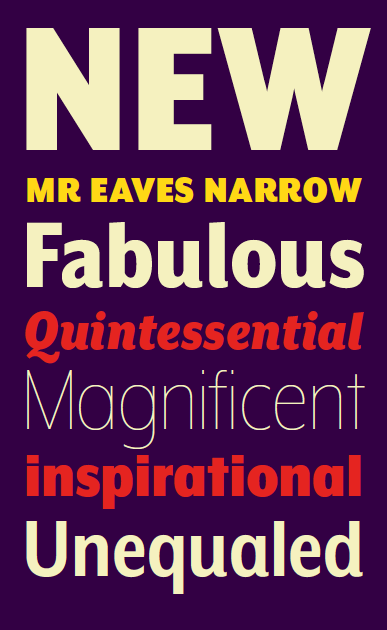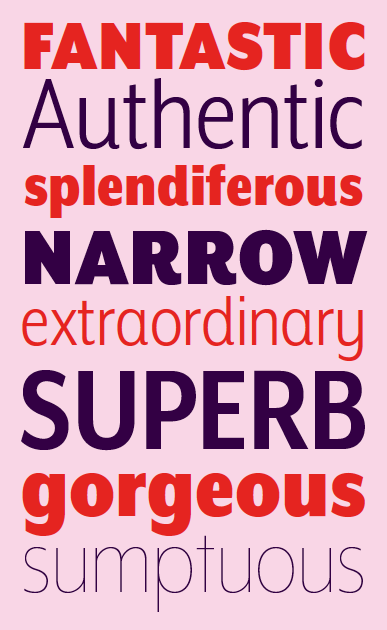
A Narrow Mr Eaves XL
Mr Eaves XL Sans & Modern Narrow are the final installments to complete the Mr & Mrs Eaves family of fonts.
Mr Eaves XL Sans Narrow is 20% narrower than the regular Mr Eaves XL Sans with overall tighter spacing. Mr Eaves XL Sans Narrow allows for a wide variety of uses and is perfectly suitable for lengthy text settings. The larger x-height also maintains superior readability at smaller point sizes.
The matching Modern Narrow family, also 20% narrower, provides an overall less humanistic look, with simpler and more geometric-looking shapes, most noticeably in the squared-off terminals and symmetric lower case counters. This family has moved furthest from its roots, yet still contains some of Mrs Eaves’ DNA. The Modern Italic is free of tails, and overall the Modern exhibits more repetition of forms, projecting a cleaner look.
Mr Eaves XL Sans Narrow and XL Modern Narrow feature seven weights each with accompanying italics, small caps and alternate characters.